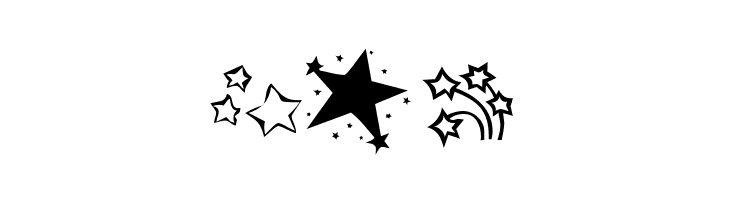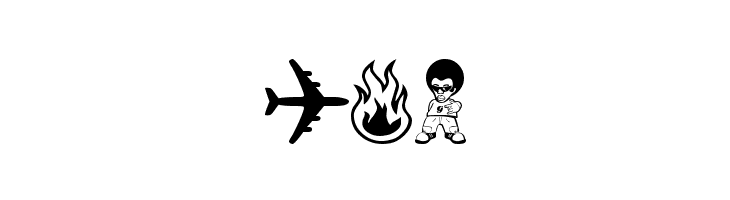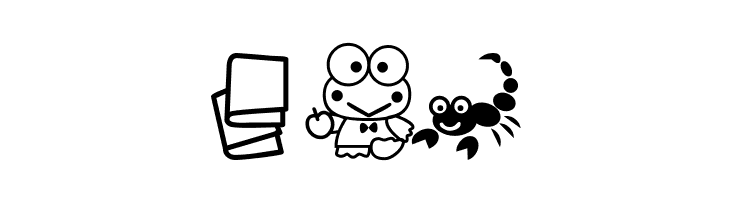
DingDong Signs o' the Times Font
A versatile set of bold, high-contrast symbols for signage and public information.
Pointers Font
A modern collection of diverse arrow symbols and directional pointers.
Square Things Font
Geometric symbol font with decorative, abstract shapes in square frames.
Bocelli Font
Elegant serif font with classic, refined letterforms and moderate contrast.
Bookshelf Titles JL Font
A clean, straightforward font with uniform stroke width and high legibility.
NeoclassicFleuronsFree Font
Ornamental fleurons with intricate, classical flourishes.
Arrow Symbols 1 Font
A diverse set of arrow symbols with varying styles and designs.
Be Happy Font
Expressive, doodle-style font made up of emotive faces and playful sketches.
Toys-4U Font
Whimsical, toy-themed pictogram font.
SymbolCrucifix Font
A collection of ornate symbols and classic serif numbers.
Clowners Font
A decorative display font made entirely of clown illustrations.
Psychopathic Font V2.0 Font
A decorative font with horror and carnival themes, featuring intricate, mask-like characters.
Tencele Latinwa Font
A decorative, gothic-style font with sharp, angular strokes and a calligraphic flair.
Spiritsdotsdrinks Font
A collection of custom brand logotypes with diverse typographic styles.
AfricanOrnamentsOne Font
Intricate African-inspired ornamental designs with bold, geometric patterns.
Freaky Comment Balloons LT Font
A decorative font with playful speech bubble designs for creative projects.
Timeface Font
A clock-inspired font with geometric and minimalist design.
SilhousTwo Font
Whimsical silhouette illustration font with narrative scenes.
CaliKat's Path Draws LT Font
A playful and versatile collection of dingbats featuring geometric shapes and whimsical illustrations.
TPF Ubiquitous Font
Playful decorative font made from continuous animal line drawings.